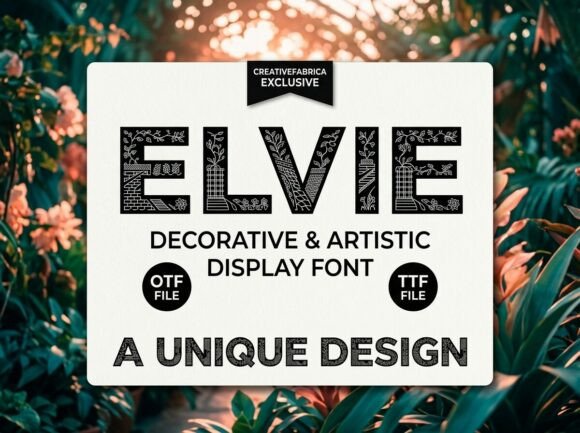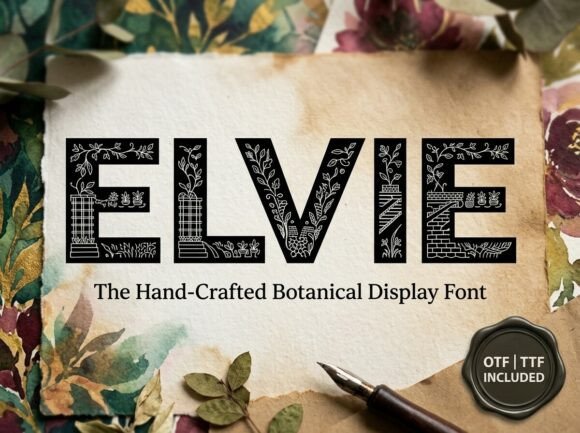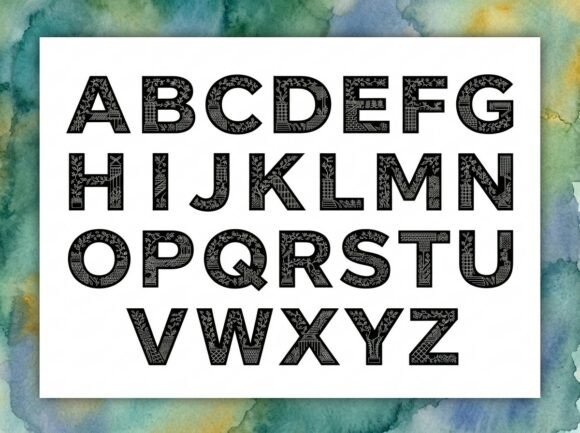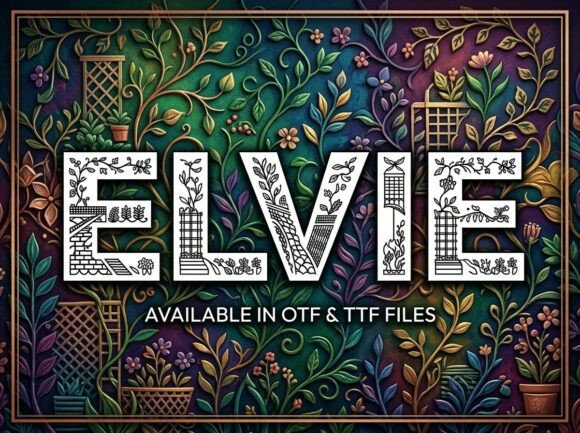
Introducing Elvie Font: A Stunning Decorative Display Font
Are you tired of using the same old fonts for your creative projects? Look no further than Elvie Font, a unique and artistic display font that’s sure to turn heads. Designed to be the center of attention, Elvie Font features a strong visual personality and versatile design that’s perfect for creators who want to break away from the ordinary.
What Makes Elvie Font Special?
Elvie Font is a decorative display font that’s specifically designed for high-impact headlines, logos, and decorative initials. With its unique artistic elements and strong visual personality, this font is perfect for creators who want to add a touch of elegance and sophistication to their work. Whether you’re a designer, crafty DIY enthusiast, or entrepreneur, Elvie Font is the perfect choice for anyone looking to make a statement.
Key Features of Elvie Font
- Unique Artistic Elements: Elvie Font features unique artistic elements that set it apart from other fonts. Each letter is carefully crafted to be a work of art, making it perfect for decorative initials and high-impact headlines.
- Strong Visual Personality: With its strong visual personality, Elvie Font is sure to grab attention and make a lasting impression. Whether you’re using it for a logo, headline, or packaging, this font is sure to stand out.
- Versatile Design: Elvie Font is versatile enough for bold headlines, artistic logos, and creative packaging, while maintaining a professional and polished finish.
Important Note Before Purchase
Before purchasing Elvie Font, it’s essential to note that this font is an ALL-CAPS (Uppercase Only) display typeface. This means that it does not include lowercase letters. However, this is by design, as Elvie Font is specifically crafted for high-impact headlines, logos, and decorative initials where every letter is a work of art.
Who Can Benefit from Elvie Font?
Elvie Font is perfect for a variety of creatives, including:
- Graphic Designers: Whether you’re working on a logo, brochure, or website, Elvie Font is a great choice for adding a touch of elegance and sophistication to your design.
- Crafty DIY Enthusiasts: If you’re a crafty DIY enthusiast, Elvie Font is perfect for creating handmade cards, invitations, and other paper crafts.
- Entrepreneurs: If you’re looking for a unique and eye-catching font for your branding, Elvie Font is an excellent choice.
Elvie Font is a stunning decorative display font that’s perfect for creators who want to break away from the ordinary. With its unique artistic elements, strong visual personality, and versatile design, this font is sure to turn heads. Whether you’re a designer, crafty DIY enthusiast, or entrepreneur, Elvie Font is an excellent choice for anyone looking to add a touch of elegance and sophistication to their work.